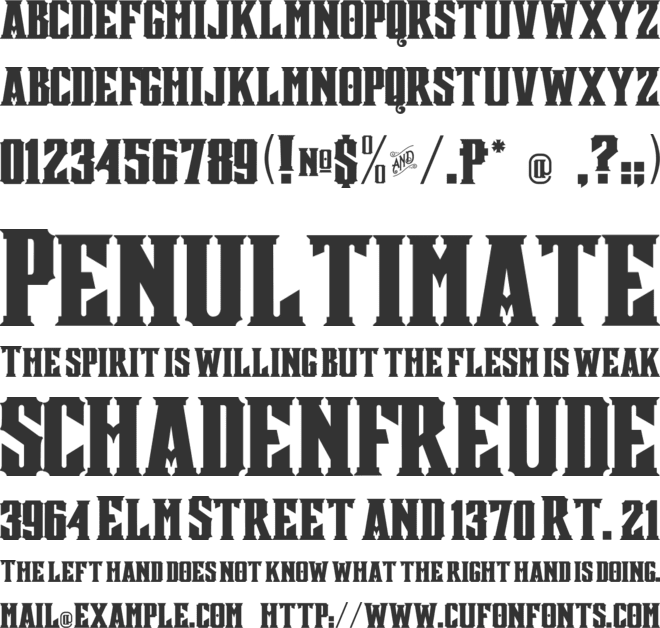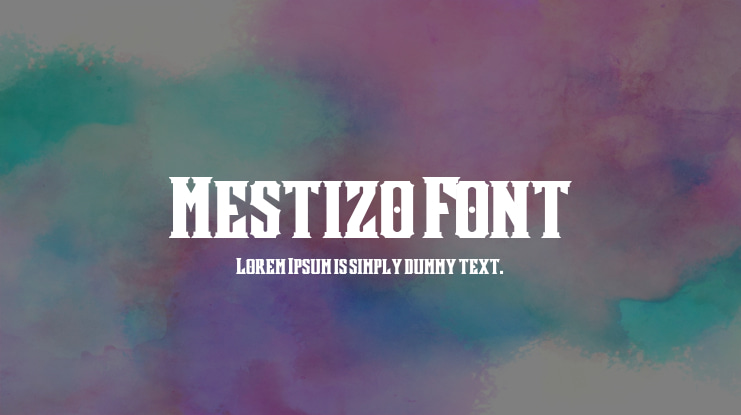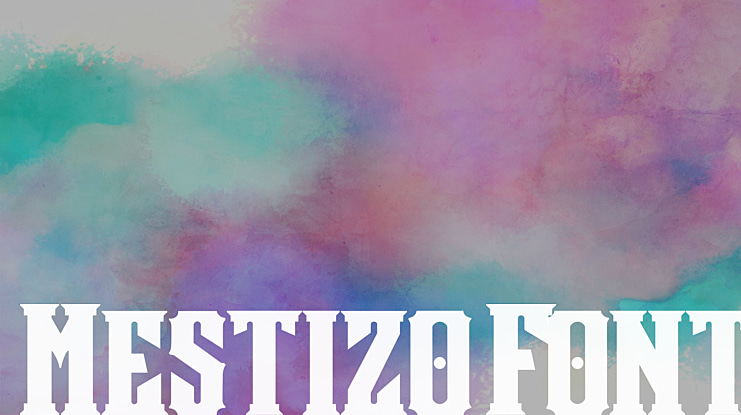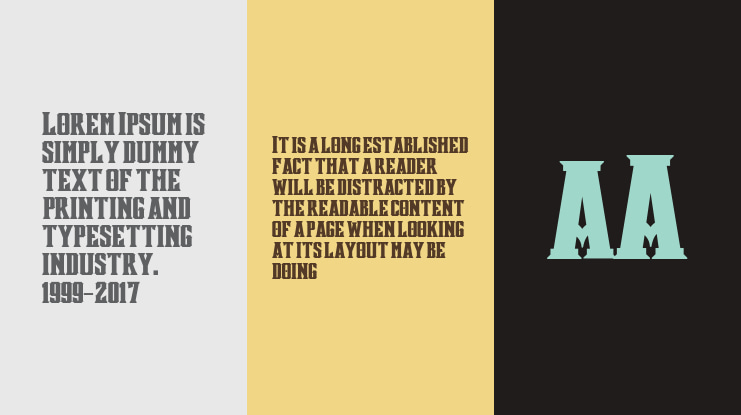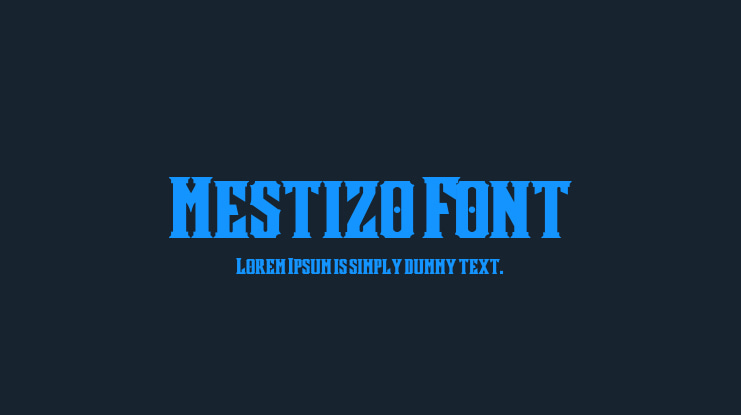
Mestizo Font
About this font: Mestizo is a vintage letterhead typeface that is inspired from signage designs and alcohol labels from the early 1900's. Clean, bold and strong are the few words to describe mestizo, the same reason why it is the perfect header font for poster, package design, brochures, t-shirts, logotypes and so much more!